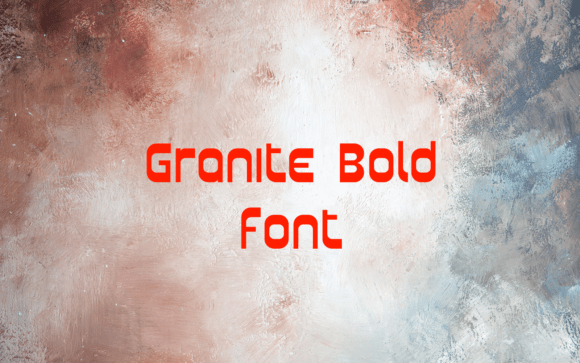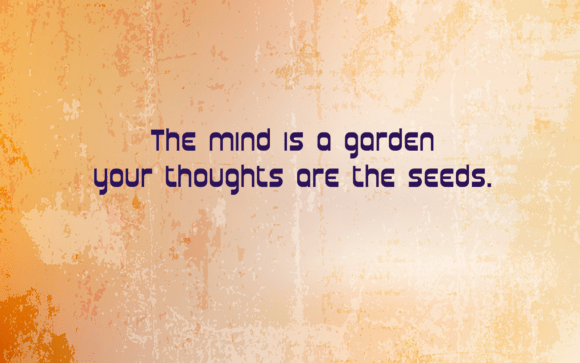
Granite Bold Font
About the Granite Bold Font
Get ready to be inspired by Granite Bold Font, a fresh and dynamic typeface for modern creators. Unleash the Power of Presence.
Granite Bold isn’t just a font — it’s a statement. With its thick strokes and unforgettable curves, it commands attention from the very first glance. Built for headlines, ads, and bold branding, this typeface brings strength, clarity, and a punch of attitude. Make your message impossible to ignore.
Granite Bold thrives in large-scale applications such as headlines, posters, and logos where its strong presence can make a powerful impact. It’s ideal for branding projects requiring a bold and confident aesthetic, or for advertising campaigns needing immediate attention. Avoid using it for body text or lengthy paragraphs; its weight and strong curves make it less legible at smaller sizes.
Its assertive personality pairs well with clean sans-serif fonts like Open Sans or Lato for a balanced contrast, or with a more delicate script like Great Vibes for a touch of sophistication. For a modern edge, consider pairing it with a geometric sans-serif like Montserrat.
Granite Bold projects an overall feeling of authority and confidence, making it a perfect choice for brands conveying strength, luxury, or innovation. It is less suitable for projects requiring a softer, more approachable tone.
Granite Bold Font Usage Examples
Granite Bold Font Example